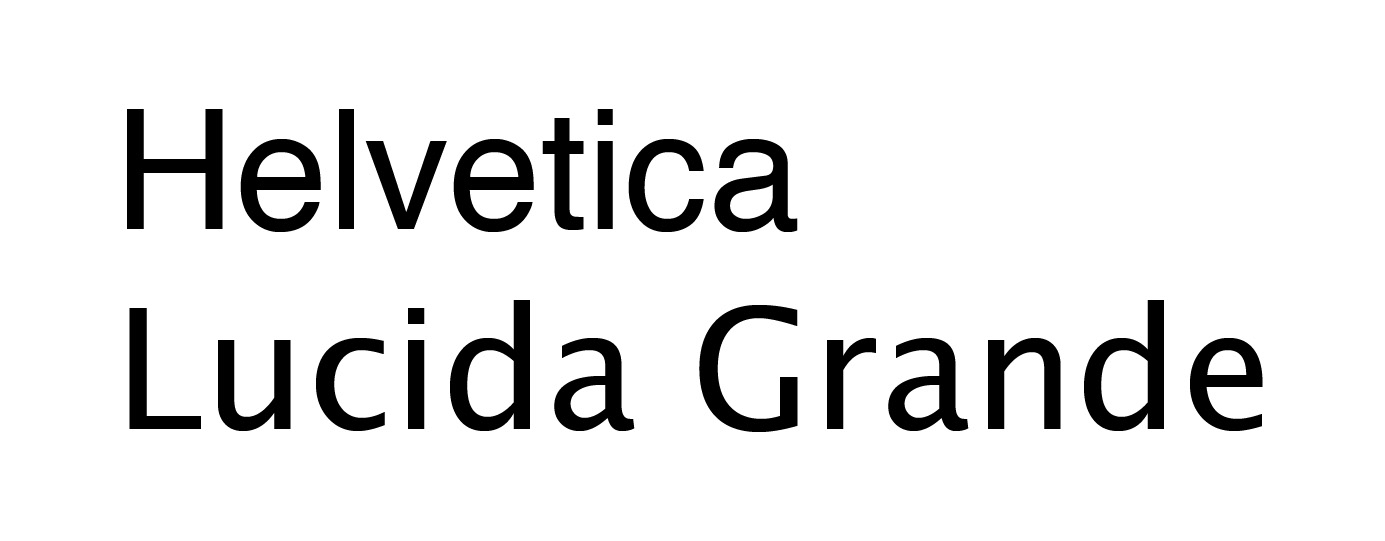
I really like the present UI of Mac OS X, especially the fonts that have been used through out the system.
iLife and Mac OS X Lion - Contacts/Calendar show that Apple is using Non-Lucida Grande or Helvetica Fonts. Why is this change coming to the Mac OS X?
It's quite disturbing as not everybody likes Helvetica. I guess a lot of people like good fonts, fonts that Apple has used before in Mac OS X. This change is not very pleasing. What do you guys think?
Personally, I think the more Helvetica the better ... especially if it's Neue, which is a more Helvetica-y Helvetica. It looks gorgeous on the iPhone 4.
Agree with thread starter. I'm completely against the use of Helvetica, not only is the baseline of the font screwed up but it is far too condensed and difficult to read. It's too large, bulky and fsckin UGLY. It's probably the worst choice of font for a user interface, it's terribly old fashioned and totally UNCOOL and stands out like dogs balls when mixed with LucidaGrande.
Helvetica on iOS is atrocious. Too big, fat, bold and condensed. iOS poorly uses the font since its so large the name of video files in the video app and audio files in the iPod app are so severely truncated they are illegible.
I love Helvetica Neue - The more the better. As long as it's consistent throughout the system.
Could someone show comparison screenshots of the OS X UI in Helvetica and in Lucida Grande (Lion vs. Snow Leopard)?
I don't know what it looks like in Lion, but generally I like Helvetica. It's a clean and modern font, but a bit tighter-spaced and thus a bit harder on the eye though, maybe they should stick with Lucida Grande as it worked so well...
Some notes on Helvetica and why it isn't really suited for text (can work as a headline or a warning sign, but not in OSX or IOS).
Why is Helvetica so popular? This question is not so difficult to answer. First, Helvetica was aggressively marketed in the 1960s. Second, Helvetica became almost the only typeface to be used by the Swiss typographic style of that era, which continues to be very influential. The third reason is that Helvetica is neutral and colourless; it is not dangerous. This makes it easier for graphic designers to use as a display face. A typeface that already has a lot of character determines the character of a poster or a book jacket. With neutral Helvetica, the character must come from the typographic designer. This makes Helvetica beloved by many. One can make a good poster with a bad typeface, but one will not automatically make a good poster with a good typeface.
In the past 50 years there have been many beautiful graphic designs using Helvetica, but this has more to do with the quality of the designers using it than that with the quality of Helvetica as a typeface. Frutiger explained its popularity with the words: 'Helvetica is the jeans, and Univers the dinner jacket. Helvetica is here to stay.'
As a text typeface Helvetica is an awkward creature. It is only because it is available on all computers that it is used by so many people around the world. You cannot blame them – they have no typographic education. They just have to set some text in some typeface. Unfortunately, Helvetica is about the worst choice one can make for text. Paul Rand, the American graphic designer, advised his students to use Helvetica only as a display face, and never in text, 'because Helvetica looks like ******* in text'.
I know this is a very old topic, but I just wanted to add that the addition of Helvetica in Mac OS X isn't new to Lion. iCal and Address Book in Snow Leopard used the Helvetica font as well. I'm not sure about Leopard, but I would think Leopard also used Helvetica in iCal/Address Book.
Also, in System Profiler (on SL and Leopard), when choosing to send the report to Apple (in the File menu), the Privacy Agreement text is in Helvetica.
So, yeah, it's not new.
Paul Rand, the American graphic designer, advised his students to use Helvetica only as a display face, and never in text, 'because Helvetica looks like ******* in text'. The ******* stands for 'dog' plus the slang word for faeces or excrement.
And he's right, try reading slabs of Helvetica and not get lazy eye or fall asleep. There's a reason Steve Jobs had an eye for typefaces. Apple should remember why.